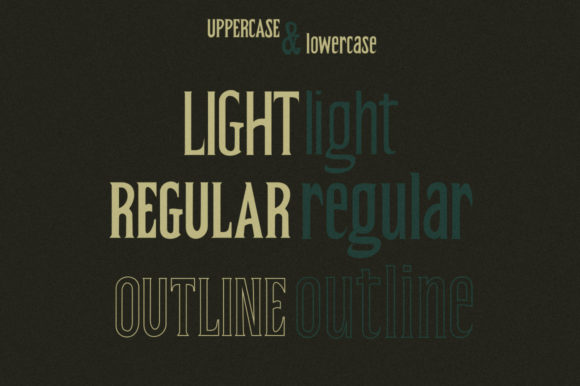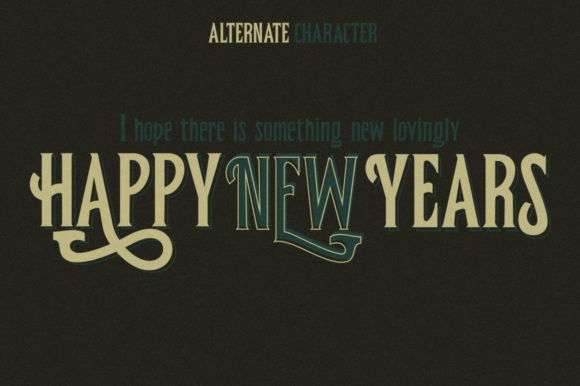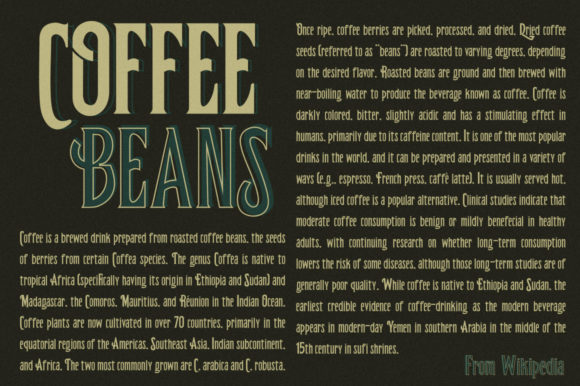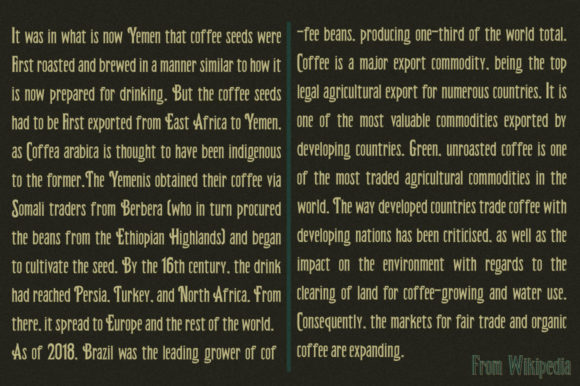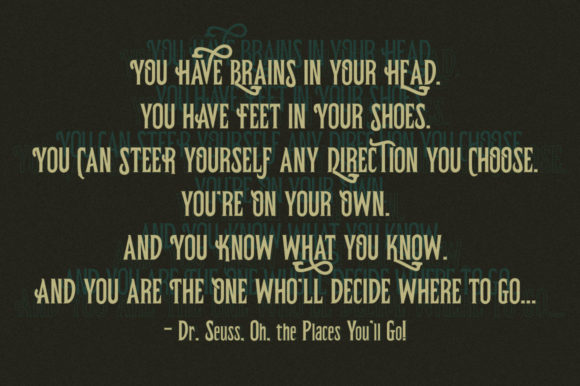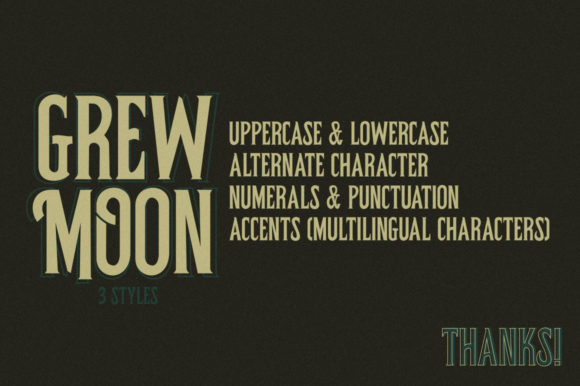
Grewmoon Font: Elevate Your Designs with a Vintage Display Flair
In the realm of design, fonts play a pivotal role in conveying messages, evoking emotions, and setting the tone for a brand or project. Among the myriad of fonts available, Grewmoon Font stands out as a unique vintage display font that can add a personalized touch to any design project. Whether you’re a seasoned designer or a crafty DIY enthusiast, Grewmoon Font offers a distinctive aesthetic that can elevate your creations from ordinary to extraordinary.
The Charm of Grewmoon Font
Grewmoon Font is characterized by its vintage appeal, which can instantly add a nostalgic feel to your designs. This font is not just a typeface; it’s an experience. It tells a story of the past, bringing a sense of warmth and authenticity to your projects. The unique design elements of Grewmoon Font make it versatile, suitable for a wide range of applications, from branding and advertising to crafting and scrapbooking.
Key Features of Grewmoon Font
- Vintage Display Style: Grewmoon Font boasts a classic, vintage display style that can add a touch of elegance and sophistication to your designs.
- Highly Readable: Despite its decorative nature, Grewmoon Font maintains a high level of readability, making it perfect for headlines, titles, and short texts.
- Versatile: This font can be used across various design projects, including but not limited to, posters, flyers, logos, packaging, and digital graphics.
- Unique Personality: What sets Grewmoon apart is its unique personality, allowing designers to create memorable and impactful designs.
Applications of Grewmoon Font
The versatility of Grewmoon Font makes it suitable for a plethora of design projects. Here are some of the most popular applications:
- Branding and Logo Design: Use Grewmoon Font to create a vintage-inspired logo that tells a story and connects with your audience on a personal level.
- Advertising and Marketing Materials: Add a touch of nostalgia to your posters, flyers, and brochures with Grewmoon Font, making your campaigns stand out.
- Crafting and Scrapbooking: Grewmoon Font can add a personalized touch to your DIY projects, such as scrapbooks, journals, and handmade cards.
- Digital Graphics: Incorporate Grewmoon Font into your digital designs, including social media graphics, blog headers, and website elements, to give them a distinctive look.
Tips for Using Grewmoon Font Effectively
To maximize the impact of Grewmoon Font in your designs, consider the following tips:
- Pair with Complementary Fonts: Combine Grewmoon Font with simpler fonts for body text to create contrast and enhance readability.
- Experiment with Colors: Grewmoon Font looks great in various colors, especially vintage-inspired palettes like sepia tones, pastels, and metallic gold or silver.
- Play with Sizes: Use size variations of Grewmoon Font to create visual hierarchy and emphasize key messages.
Grewmoon Font is more than just a typeface; it’s a design element that can transform your projects with its vintage charm and unique personality. Whether you’re aiming to create a nostalgic feel, add elegance, or simply stand out in a crowded design space, Grewmoon Font is an excellent choice. Its versatility, readability, and distinctive style make it a valuable addition to any designer’s toolkit. So, why settle for ordinary when you can make your designs extraordinary with Grewmoon Font?